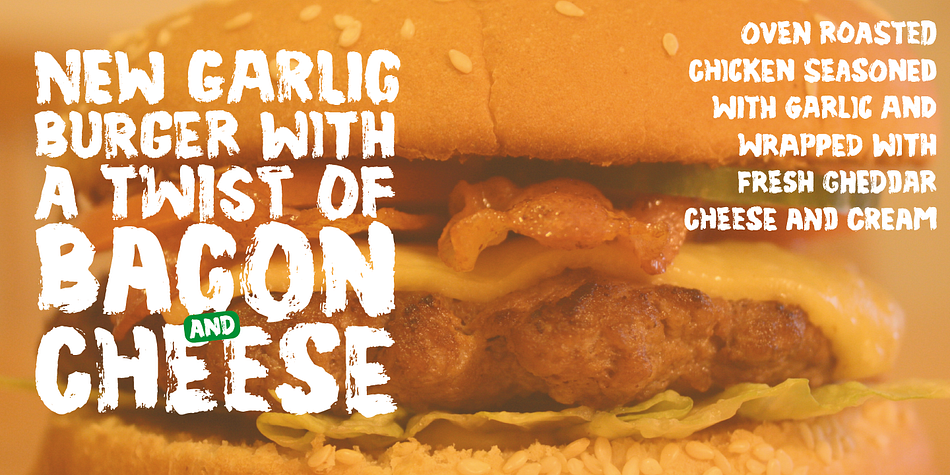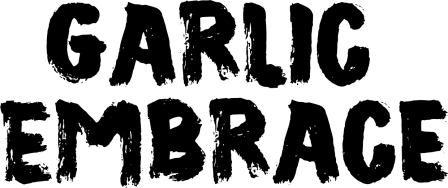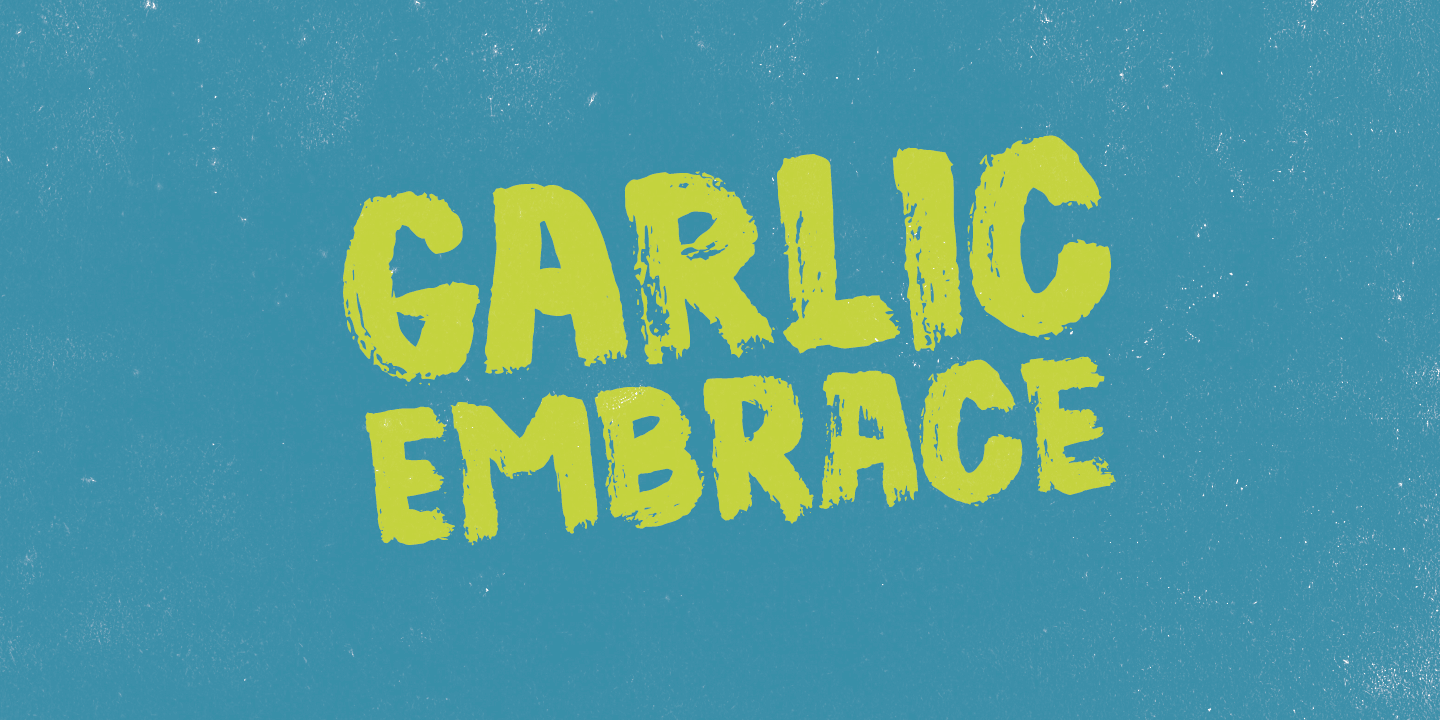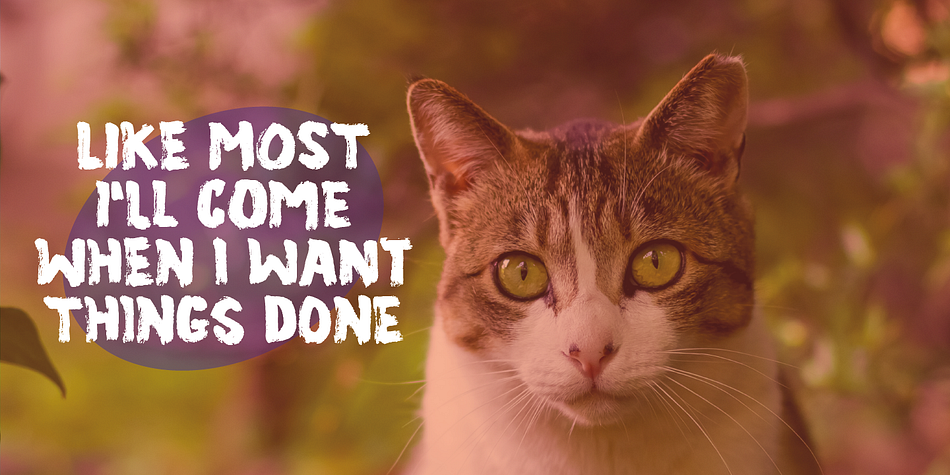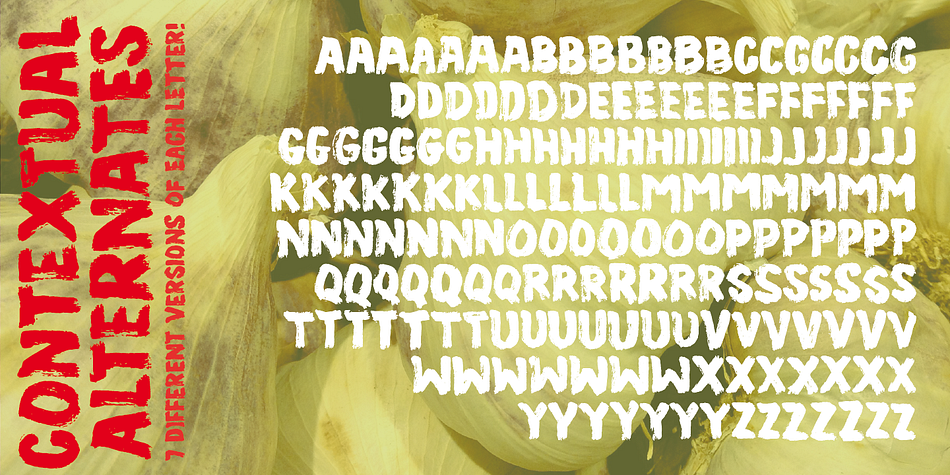
Garlic Embrace is a grunge font published by Pizzadude.dk.
Ever wanted to be embraced by garlic? Probably not! But this font could surely embrace your designs that need an authentic brush look!
Comes with 7 contextual alternates that automatically cycles as you type! Also, Garlic Embrace is FULL of accented letters! :)